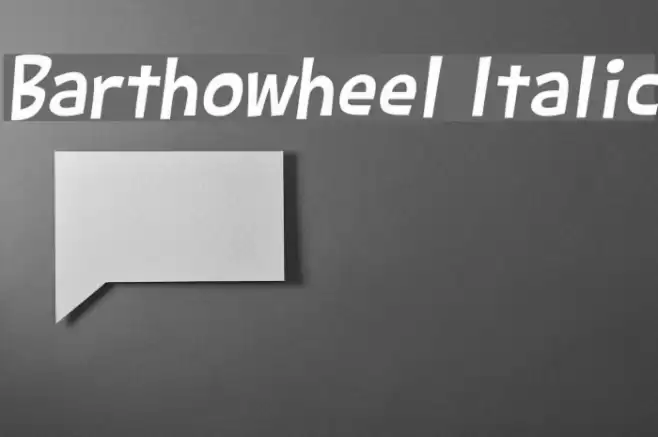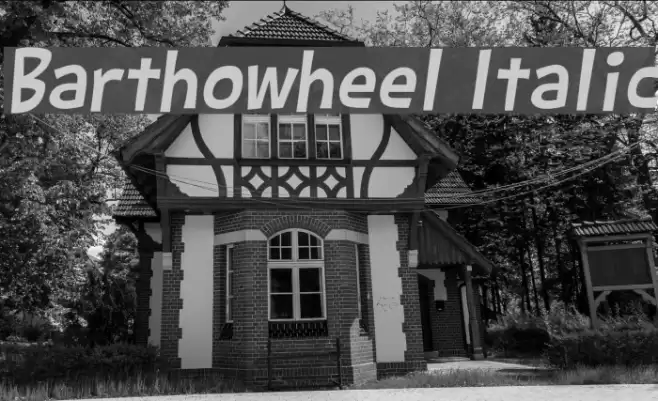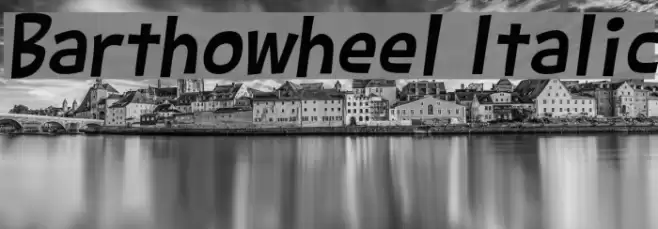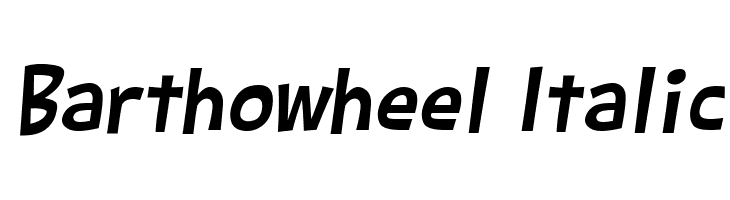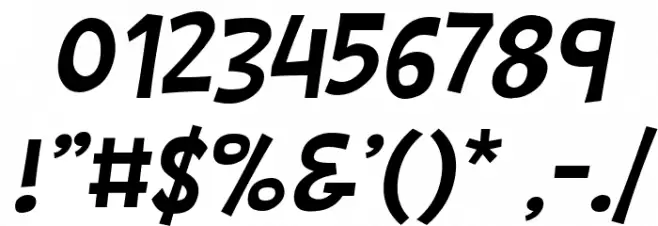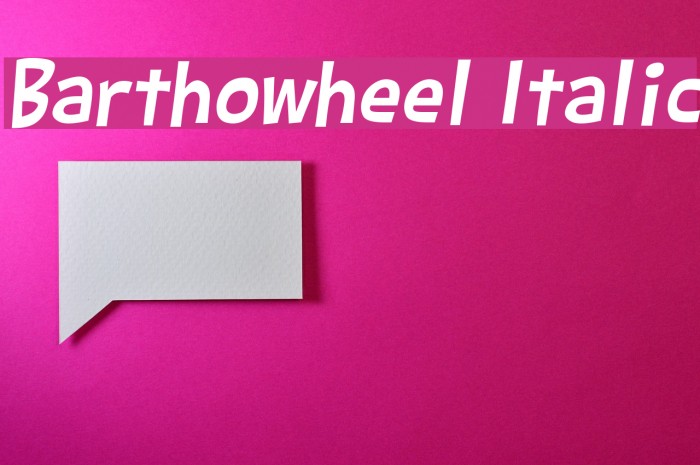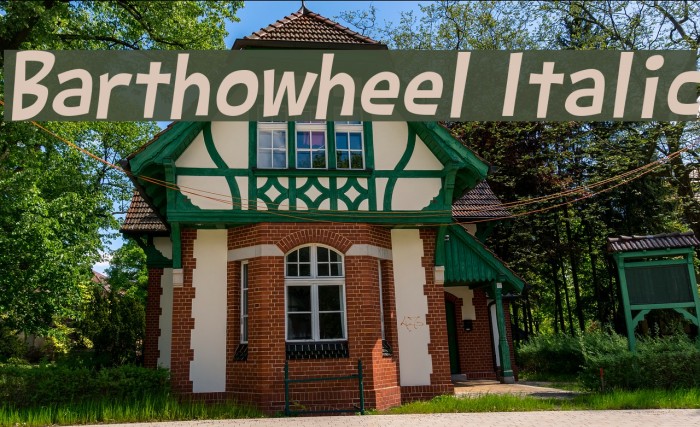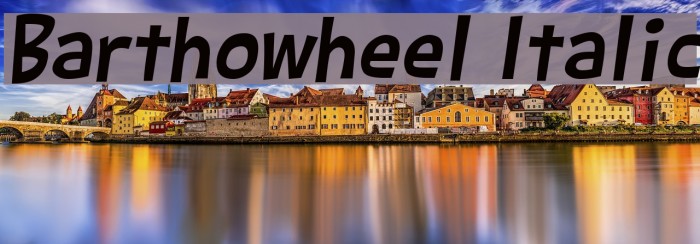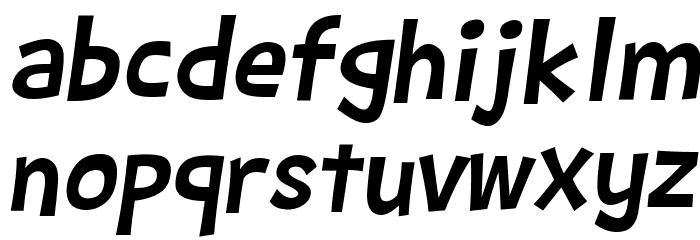
Barthowheel Italic Font
Barthowheel Italic Description
This font features a dynamic and energetic style with a forward-leaning italic slant, giving it a sense of motion and urgency. The characters are bold and robust, with a consistent stroke width that maintains readability across various sizes. The uppercase letters are slightly taller than the lowercase, providing a strong visual hierarchy. The numerals are clear and distinct, making them suitable for both display and text purposes. Special characters are well-defined, enhancing the font's versatility. The overall design is modern and clean, making it suitable for a wide range of applications.
A bold, italic font with a modern and dynamic style from Cartoon fonts.
- Proposed Projects: Ideal for branding, advertising, headlines, and posters where a strong, modern impression is desired.